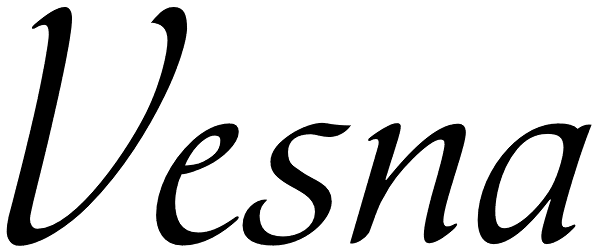
Vesna
PT Vesnaâ„¢ was designed by Natalia Vasilyeva in 2000. Licensed by ParaType. An original calligraphic script for use in advertising and display typography.